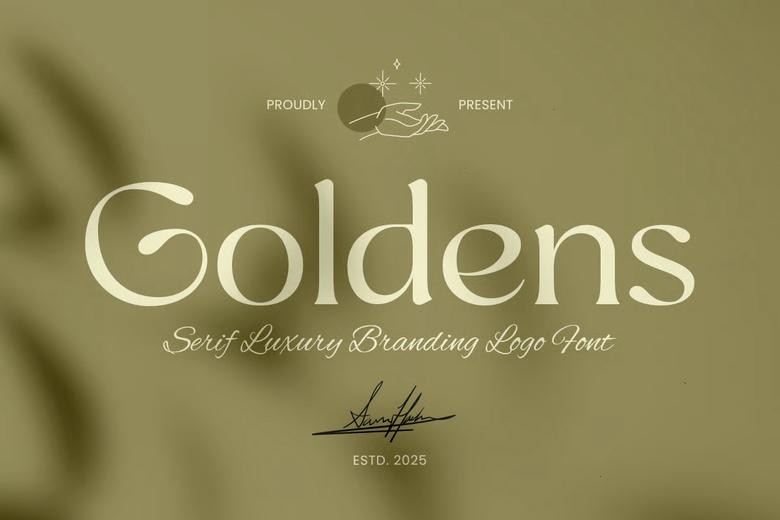
Goldens Font
Goldens is a serif luxury branding logo font that is designed to bring an elevated and premium presence with a timeless level of sophistication. With refined serif details and balanced proportions, this typeface creates an elegant mood that is exclusive, polished and confidently high-end.
Fashion and beauty logos, boutique identities, jewelry packaging, perfume labels, high-end editorial layouts, and perfect in luxury branding, Goldens glosses on logos, headlines, product packaging, invitations, signage and social media campaigns. Its traditional serif typeface gives it prestige and at the same time, is contemporary enough to be used within brand systems of today.
You are either designing a luxury logotype or creating a whole luxury identity, either way, you can make your typography feel deliberate, costly, and memorable in both print and digital designs with the help of Goldens.
Goldens Serif Font